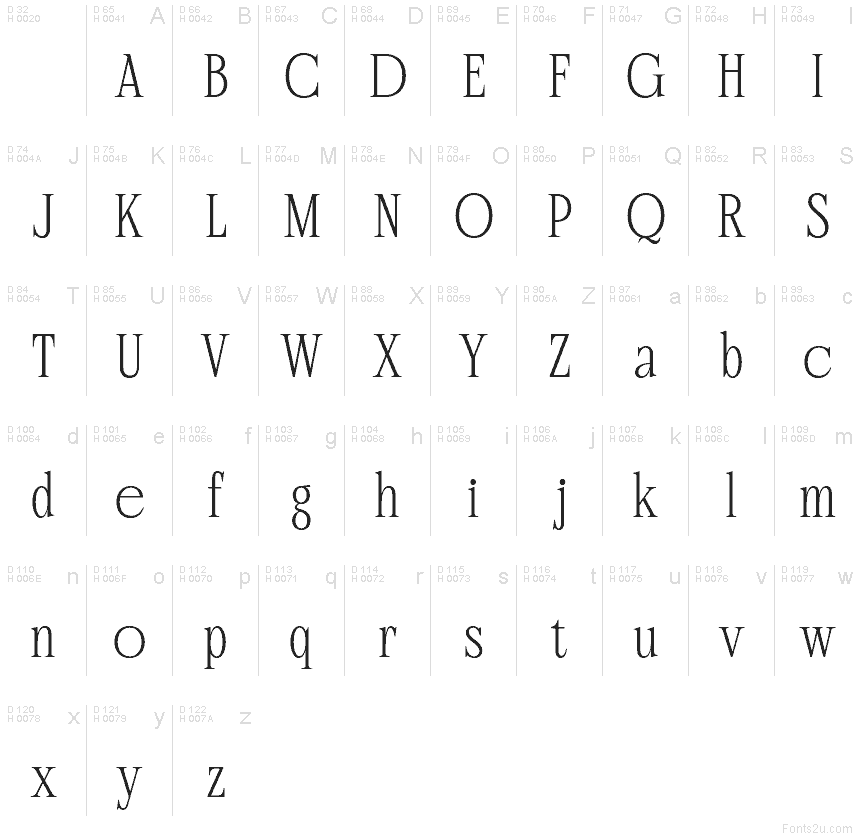
CS Qeisya Regular Demo
CS Qeisya font by Craft Supply Co. is a sophisticated light serif with a classic and refined appearance. It exudes elegance in every curve with its design based on the timeless nature of old-style letterforms, bringing visual harmony and beauty across each composition.